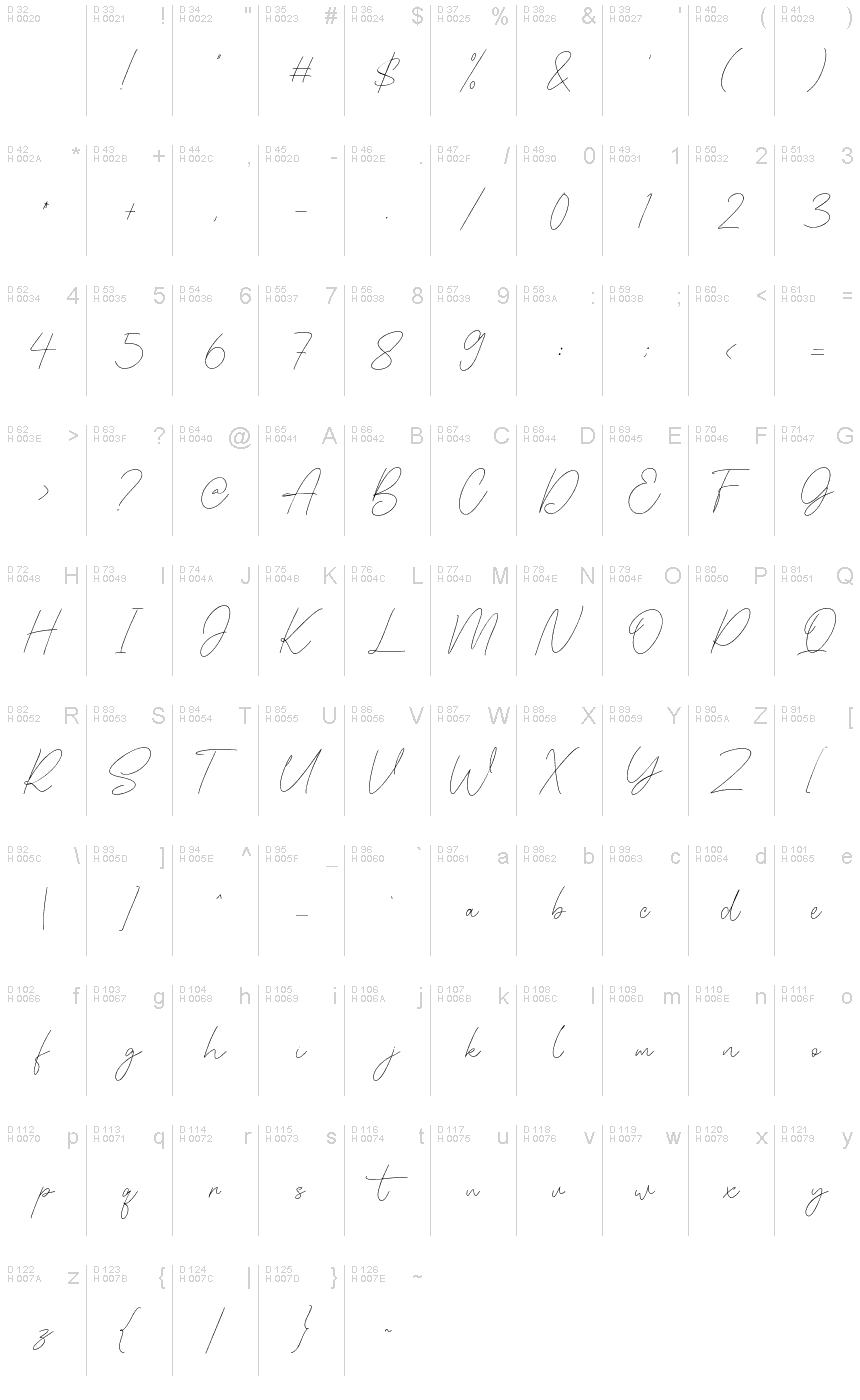
Blinkest
Blinkest is a handwritten font designed by Maulana Creative. Its thin weight makes it perfect for adding an elegant touch to projects such as invitations, greeting cards, posters, and logos. Blinkest's delicate and distinct lettering also makes it an ideal choice for crafting unique quotes or titles.